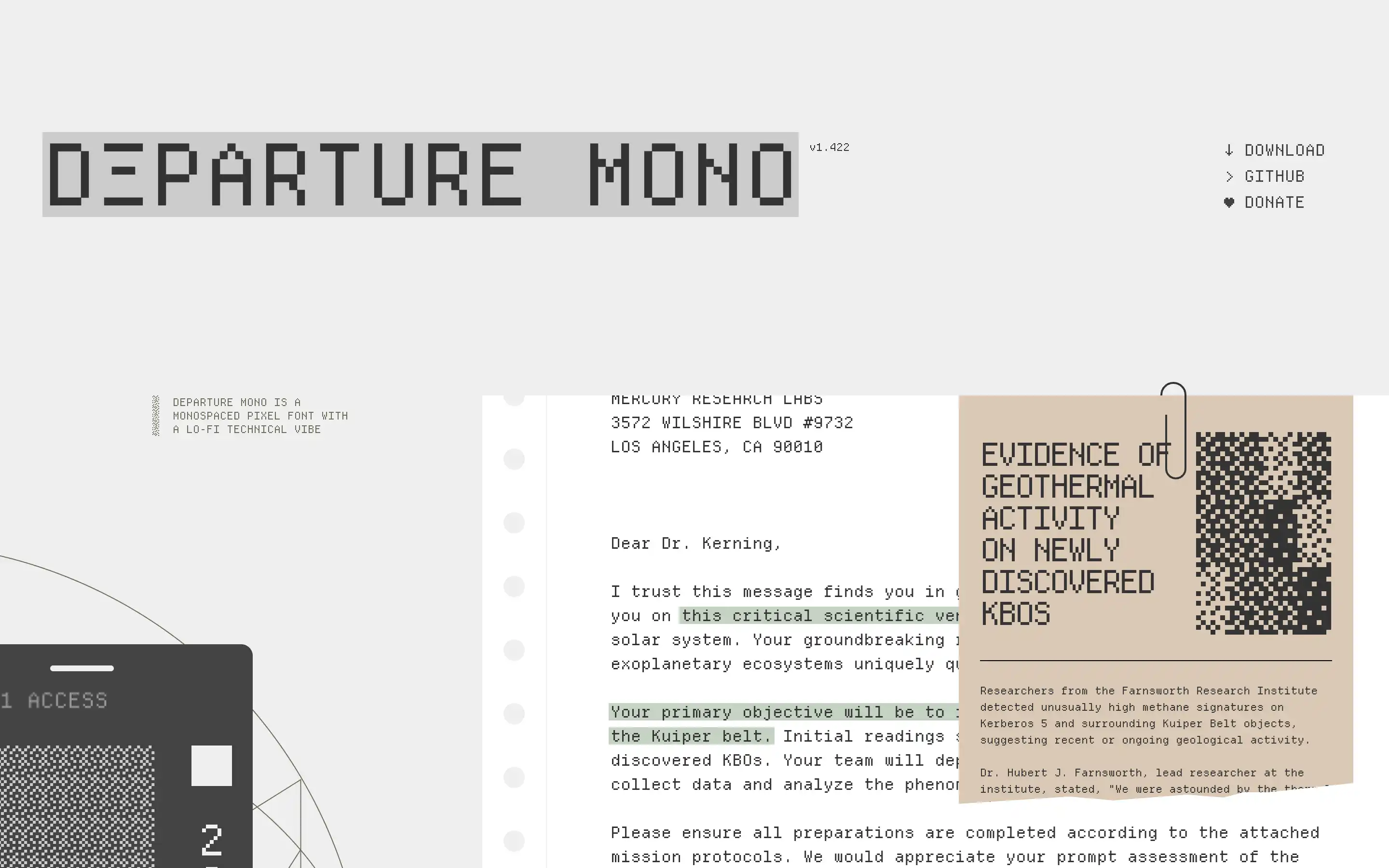
In a world where digital interfaces have become increasingly sleek and minimalist, there’s something to be said for the nostalgic charm of old-school aesthetics. Enter Departure Mono, a monospaced pixel font that harks back to the early days of computing yet remains remarkably versatile and practical for modern-day applications.
Crafted with meticulous attention to detail, Departure Mono captures the essence of those beloved lo-fi technical vibes, making it the perfect choice for many projects.